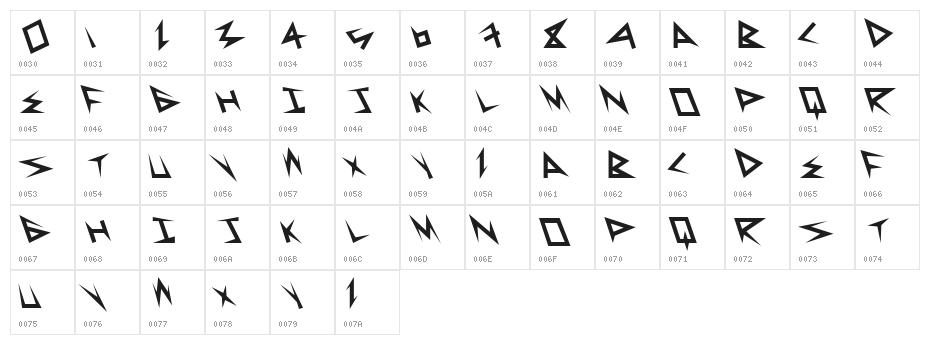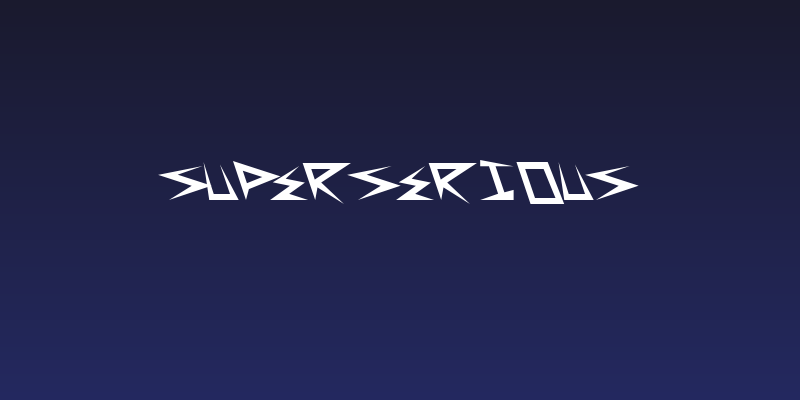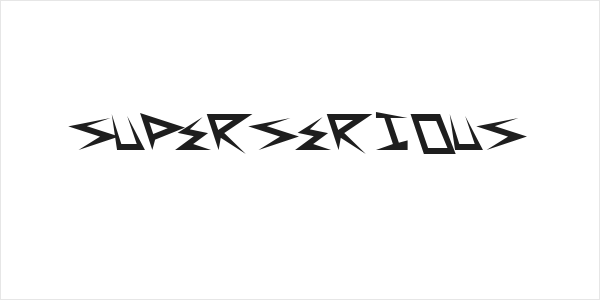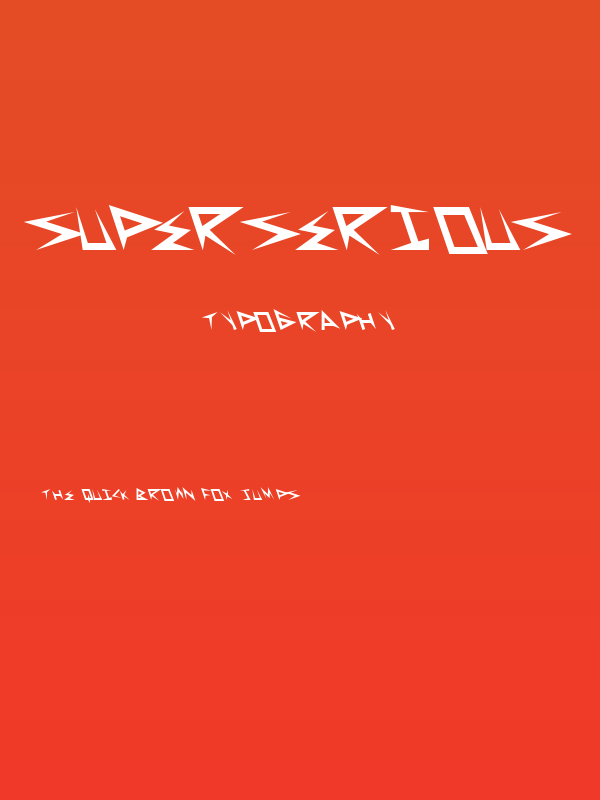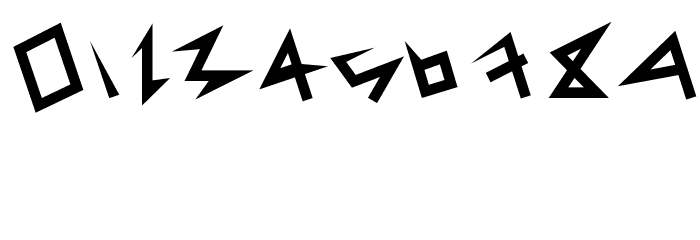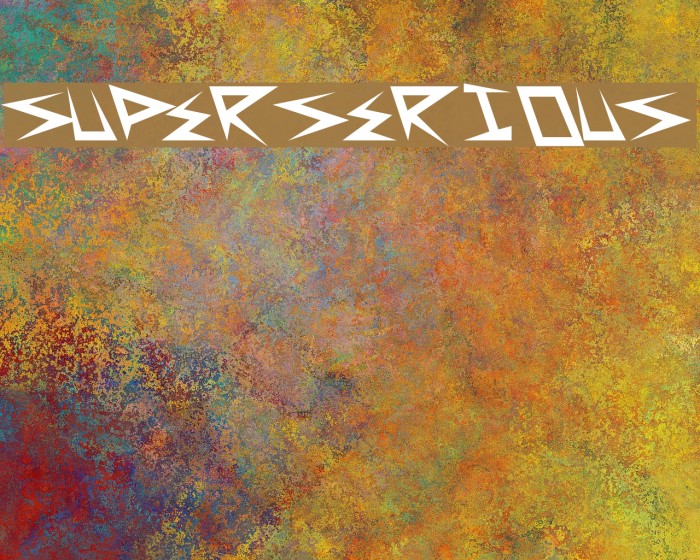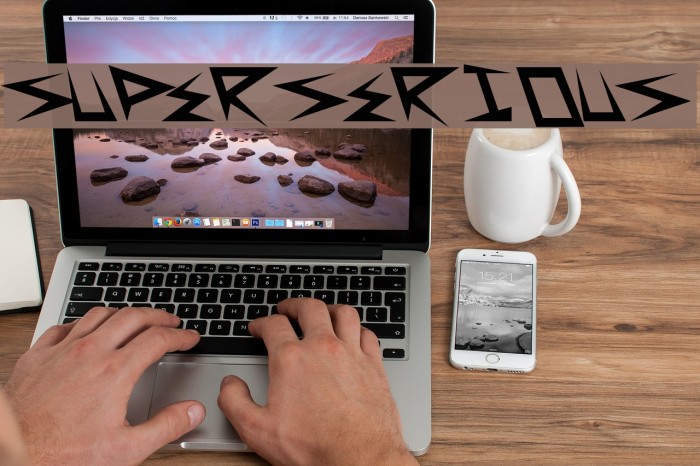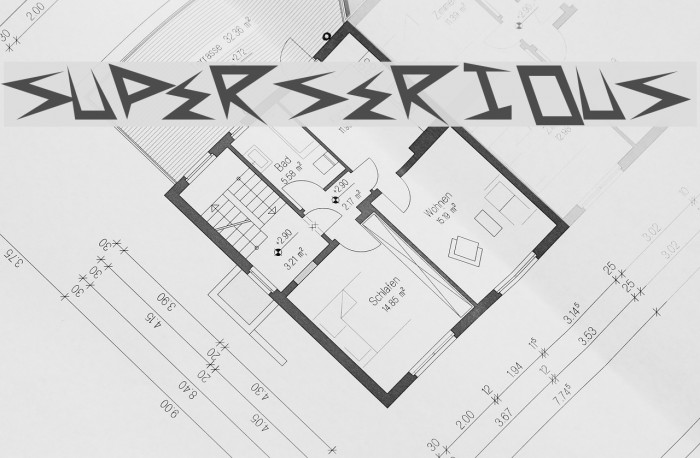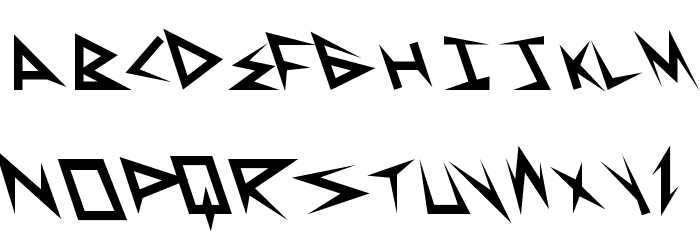
SuperSerious Font
SuperSerious Description
This font features a bold and angular design, characterized by sharp, jagged edges and a dynamic, energetic appearance. The letters are highly stylized, with exaggerated points and angles that give them a striking, aggressive look. The uppercase and lowercase letters maintain a consistent style, with the same angularity and sharpness. Numbers and special characters follow the same design principles, ensuring uniformity across the character set. This font's unique style makes it stand out, ideal for projects that require a bold and impactful visual statement.
| Overall Style | Modern, Edgy |
| Proposed Projects | Ideal for music album covers, video game titles, posters, and branding that requires a bold and edgy look. |